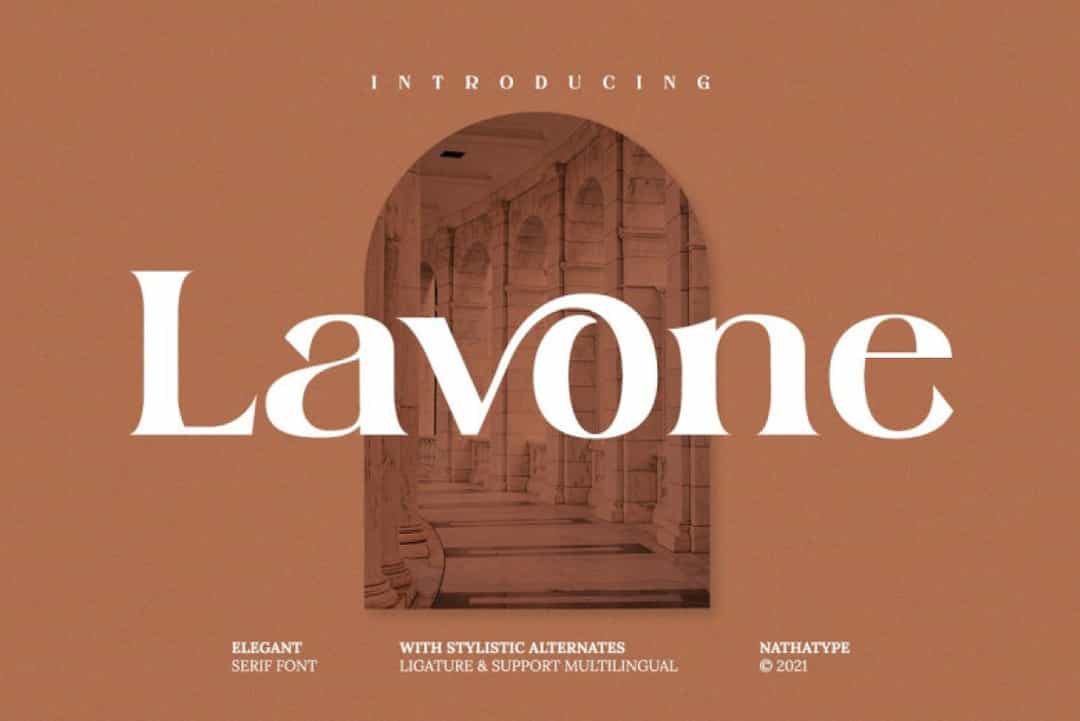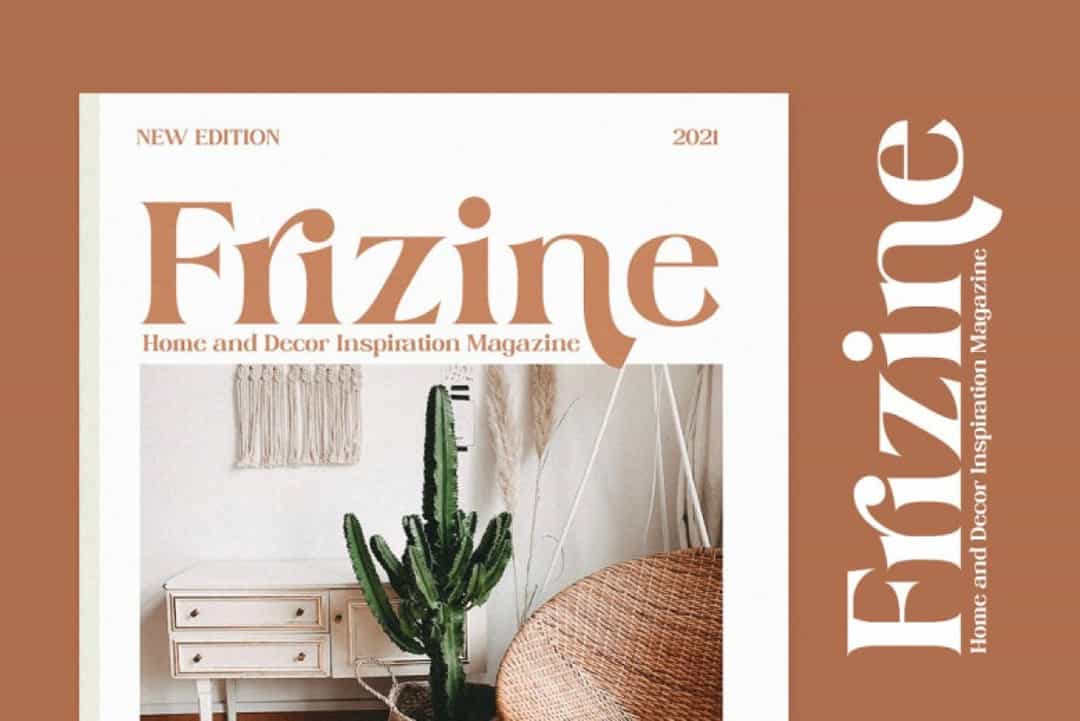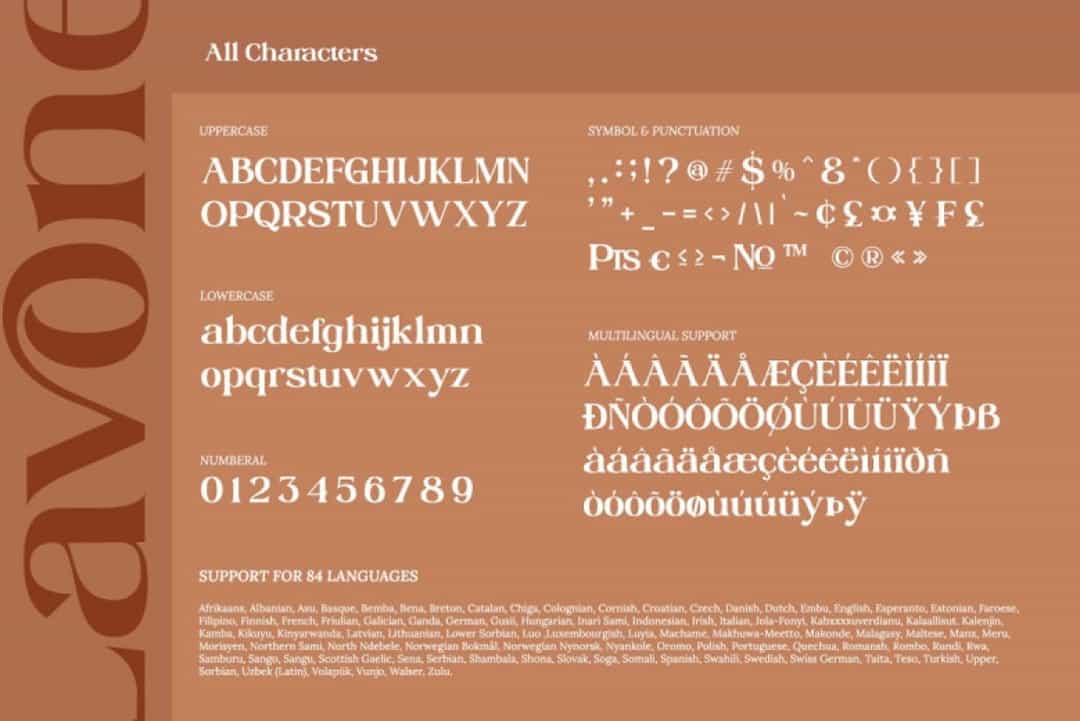
Lavone Font is a sophisticated serif typeface designed with elegance in mind, boasting handcrafted craftsmanship that’s visually captivating and user friendly. Easy to read and great at capturing headlines or large text for branding purposes; Lavone makes you say “aww!” Its adorable style will leave you smiling!